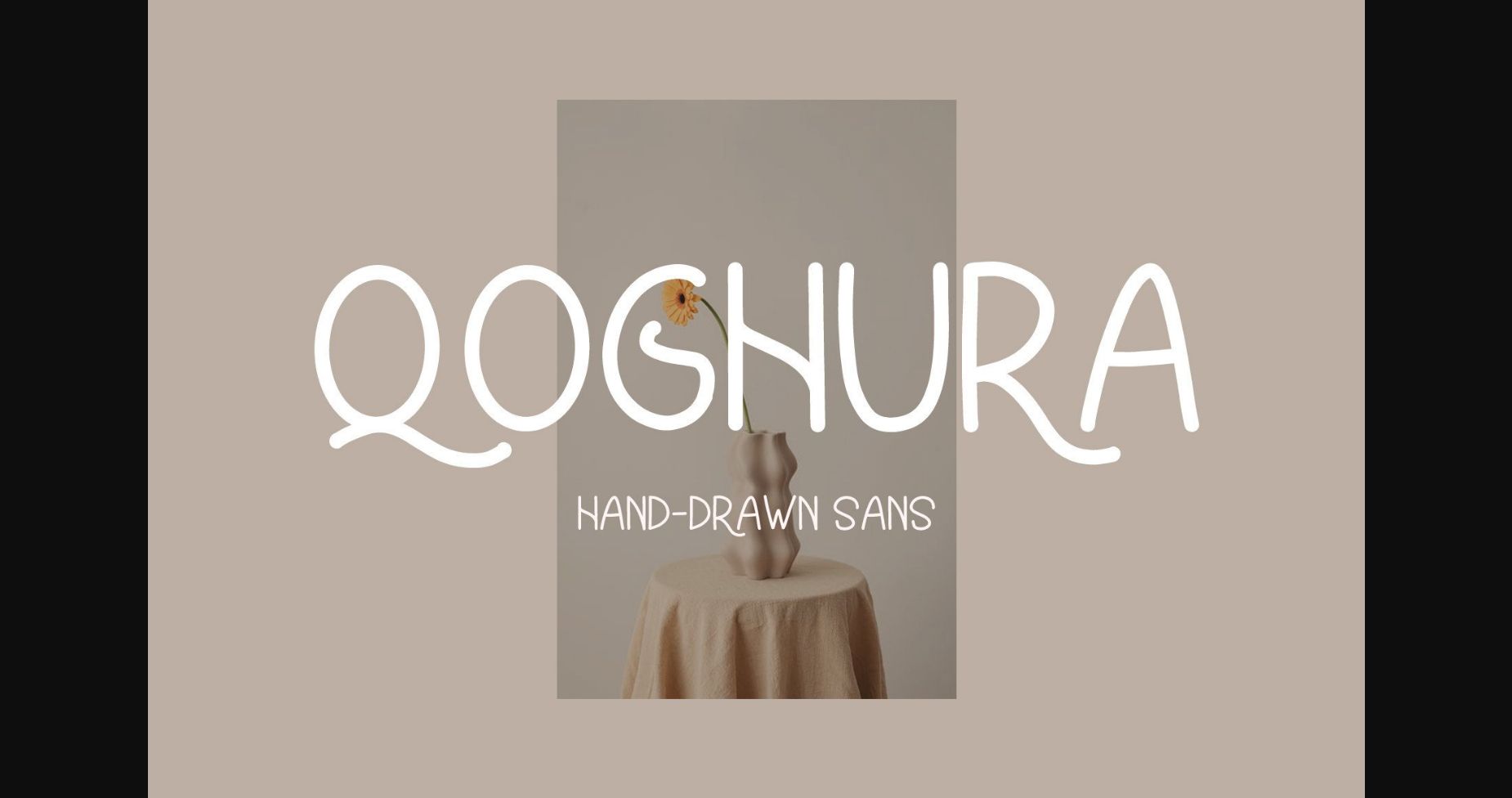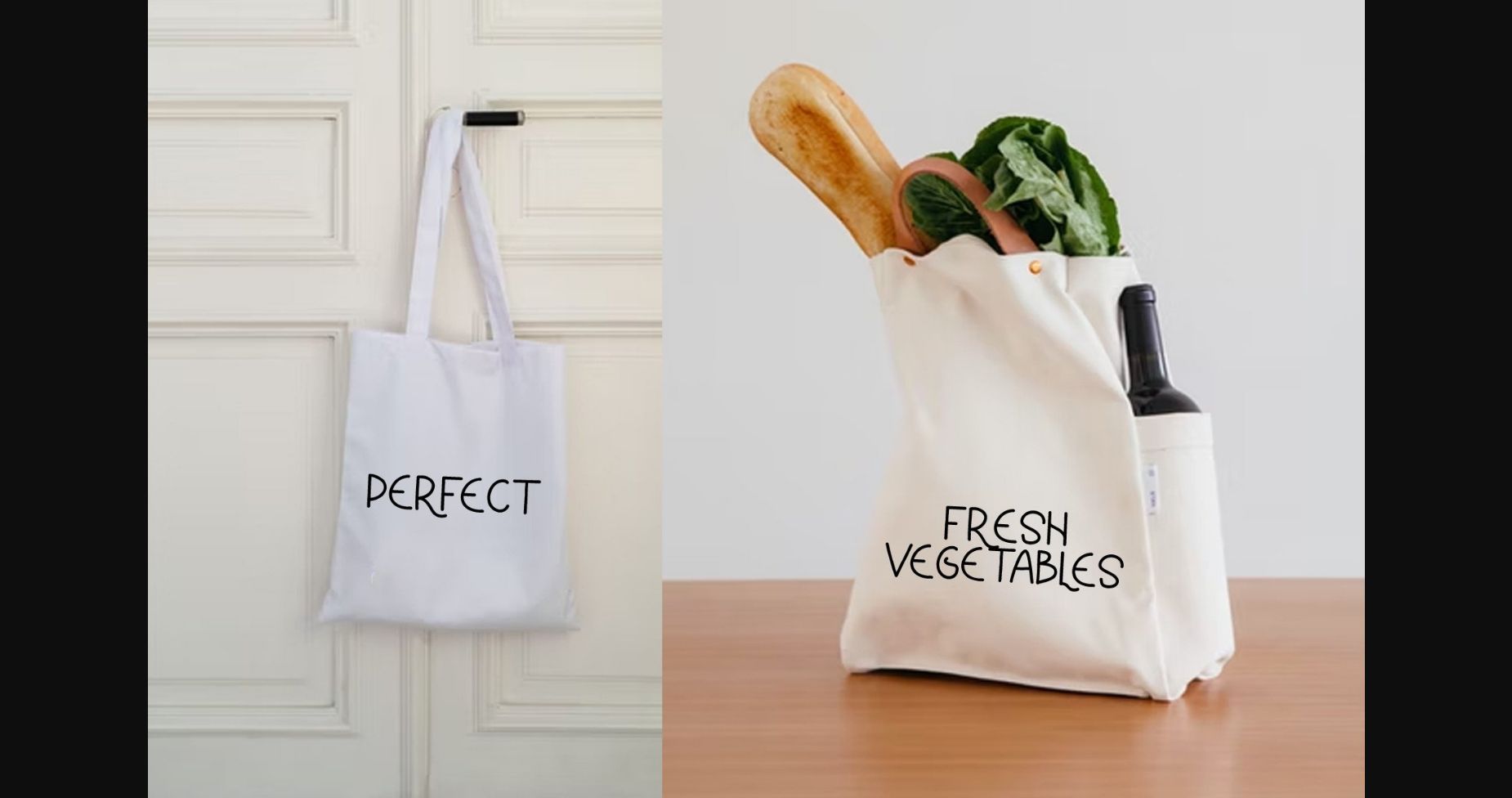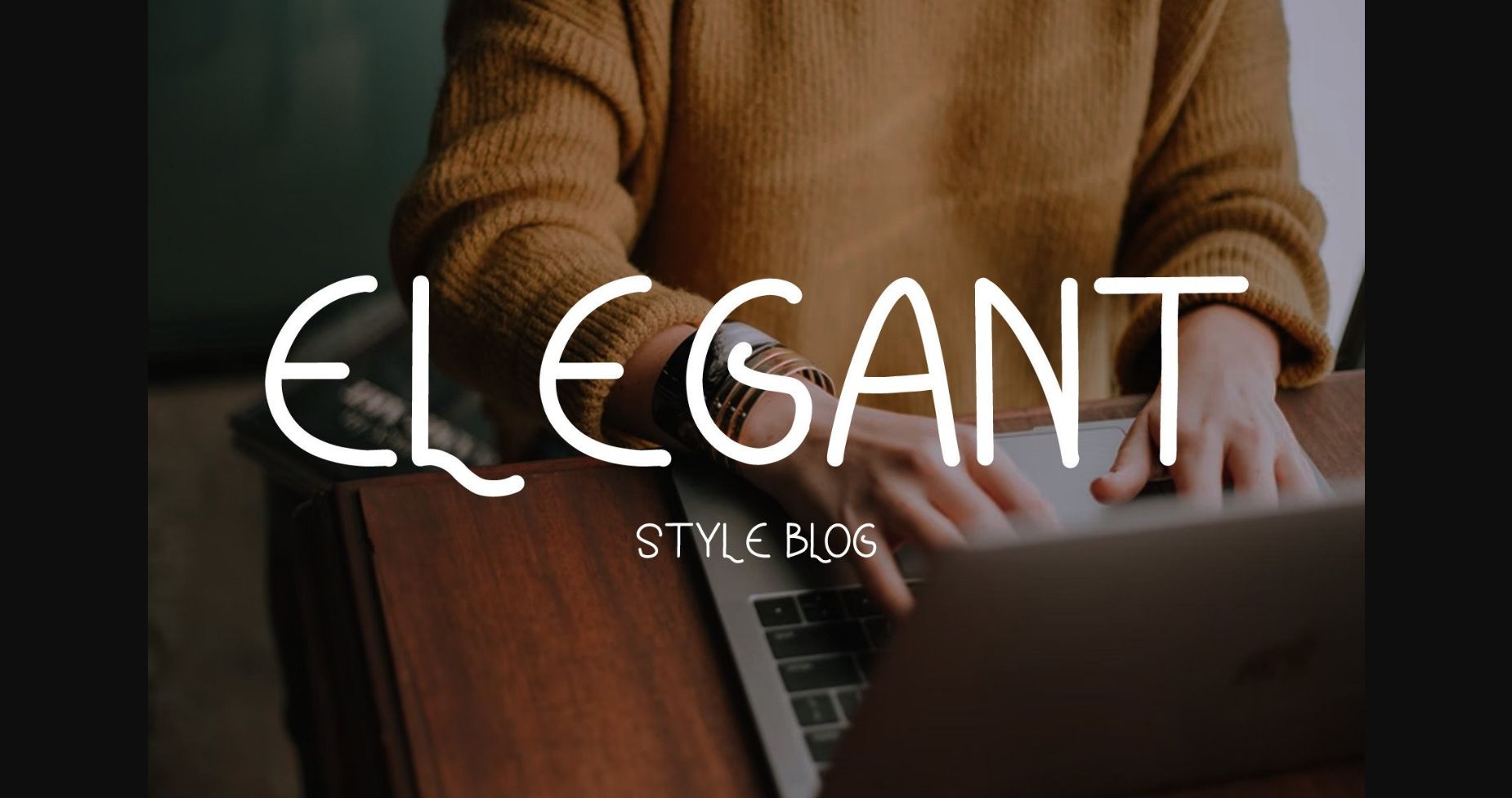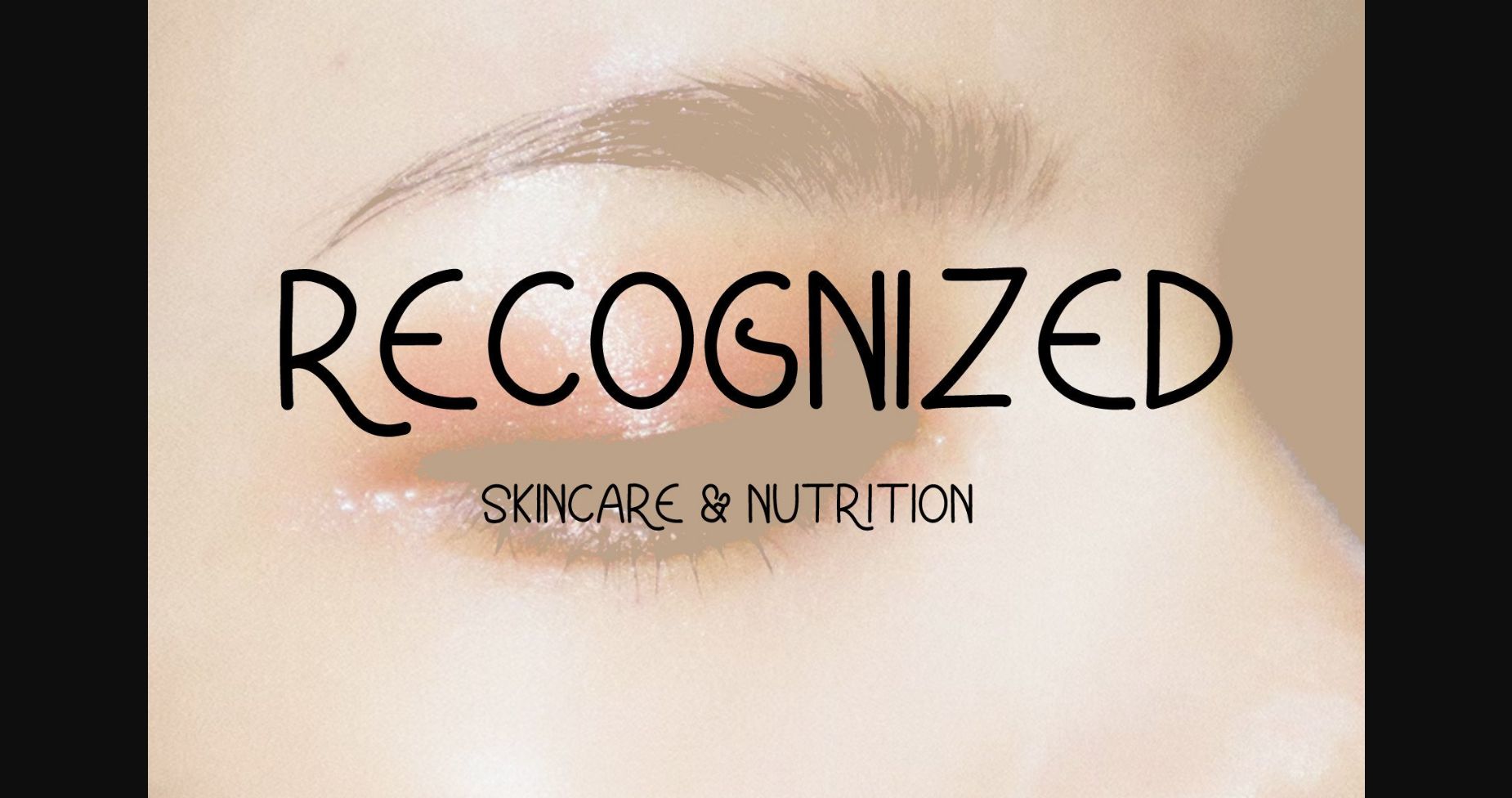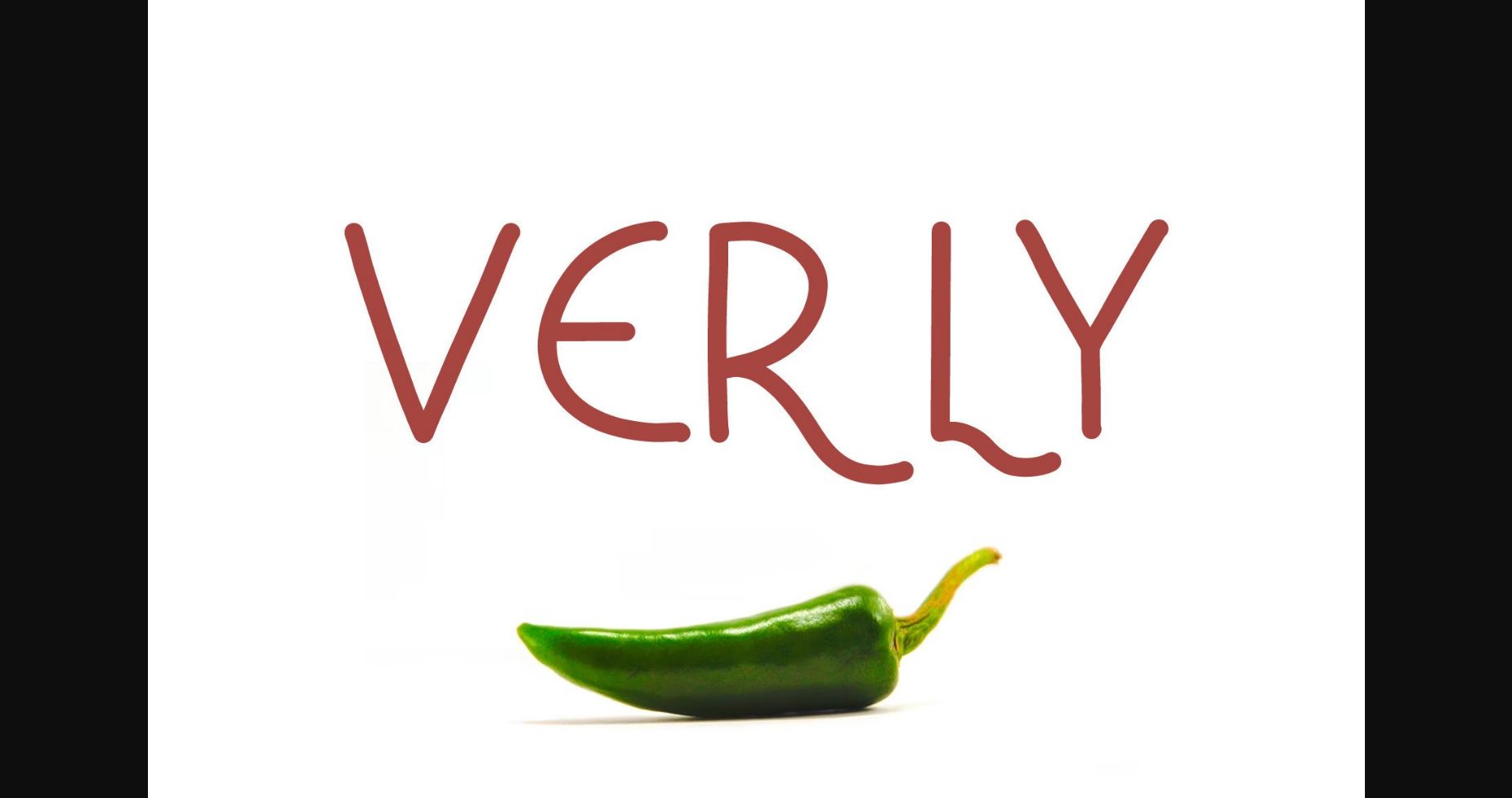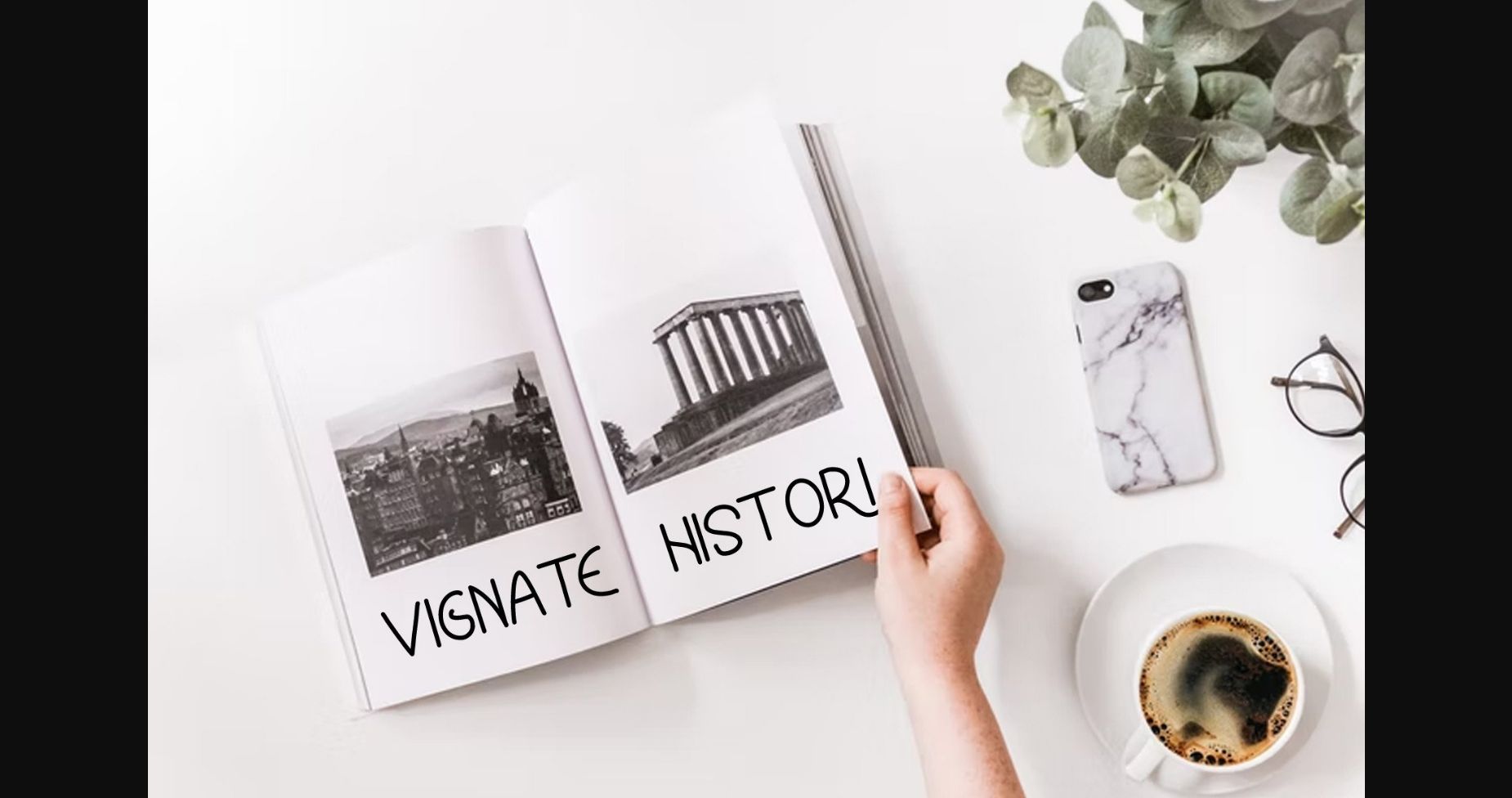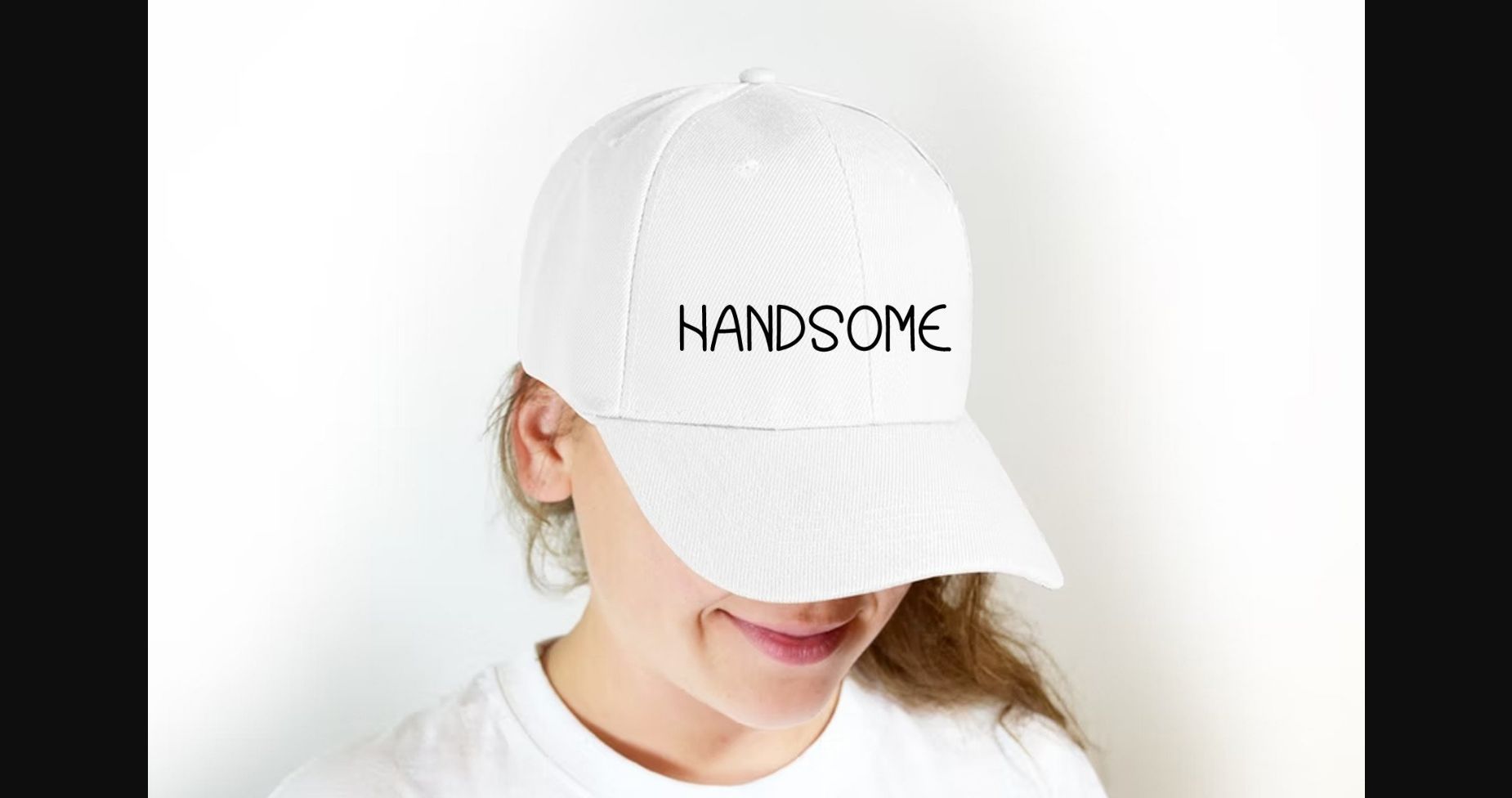
HomeSans Serif FontsQoghura Font Sans Serif Fonts Qoghura Font FacebookTwitterPinterestWhatsApp 1 of 9 ... Qoghura Font Poster 2... Qoghura Font Poster 3... Qoghura Font Poster 4... Qoghura Font Poster 5... Qoghura Font Poster 6... Qoghura Font Poster 7... Qoghura Font Poster 8... Qoghura Font Poster 9... About Qoghura Font Qoghura is a natural and original sans serif font. Clean and minimalistic, this splendid typeface is perfect for branding, handmade products, ceramics, logos, Instagram quotes, packaging, magazines, headings, and more. DOWNLOAD NOW People also explored Ninja Font Taro PN Hangulishious Font Snowman Font Lily Wang Harvestmoon Font Marble Font Dubai Font Spartacus Family Font 217 0 TagsQoghuraQoghura Font Previous articleThousand Dreams FontNext articleAurora Font LEAVE A REPLY Cancel reply Comment: Please enter your comment! Name:* Please enter your name here Email:* You have entered an incorrect email address! Please enter your email address here Website: Save my name, email, and website in this browser for the next time I comment. Personal Use Free Bukan Personal Use Free Read more about this font Awesome Snowflakes Font Personal Use Free Read more about this font Dear Monita Personal Use Free Read more about this font Loopina Personal Use Free Read more about this font BLOG Free Fonts Risk: Why Free Fonts Can Be Dangerous for Designers Free Fonts Risk: Why Free Fonts Can Be Dangerous for Designers Using free fonts is a common practice in web and graphic design. However, the... Exploring Font Trends Top 7 Google Fonts Alternatives for Faster and Privacy-Friendly Web Design (2025) The 10 Best Handwriting Fonts to Add Personality to Your Designs